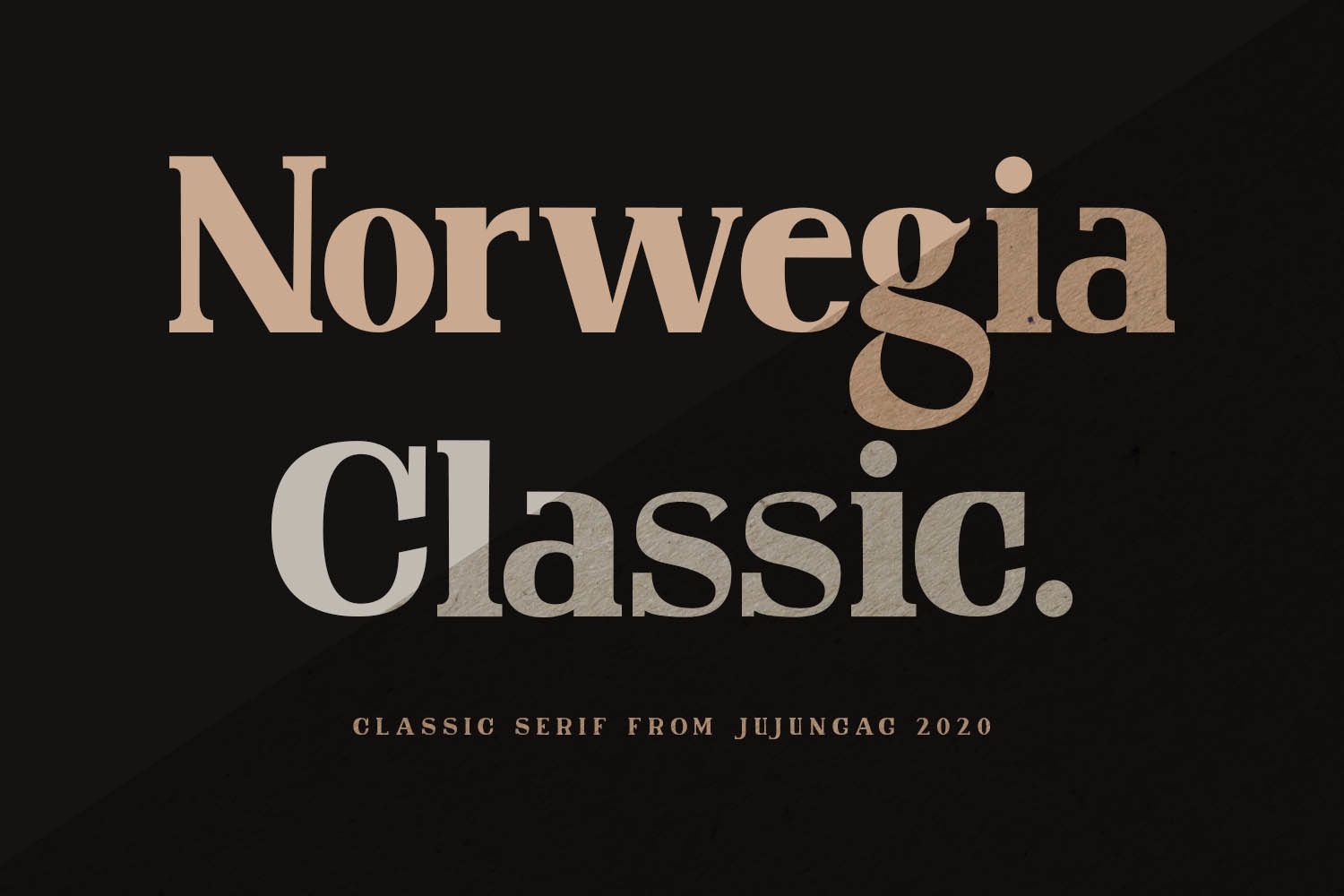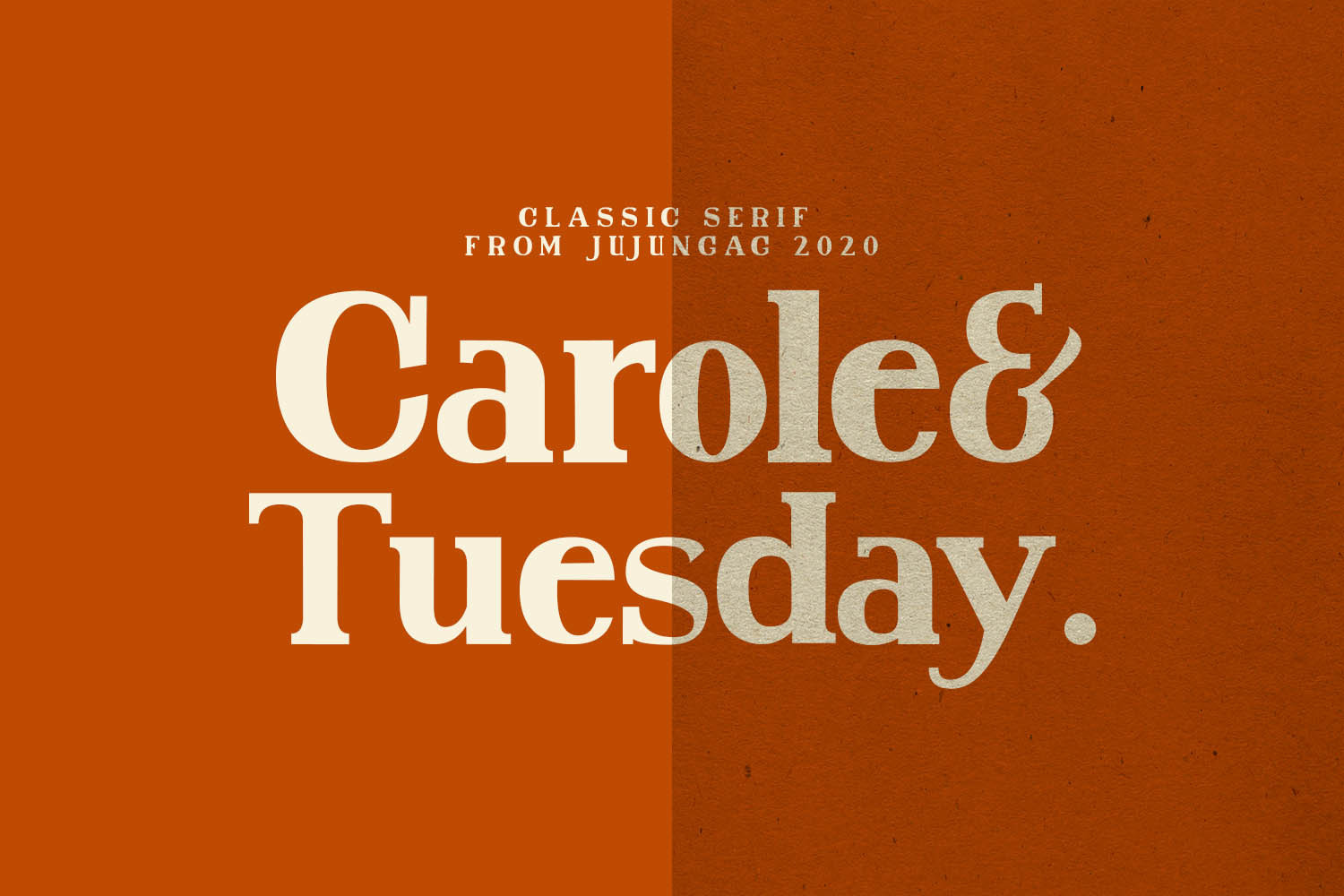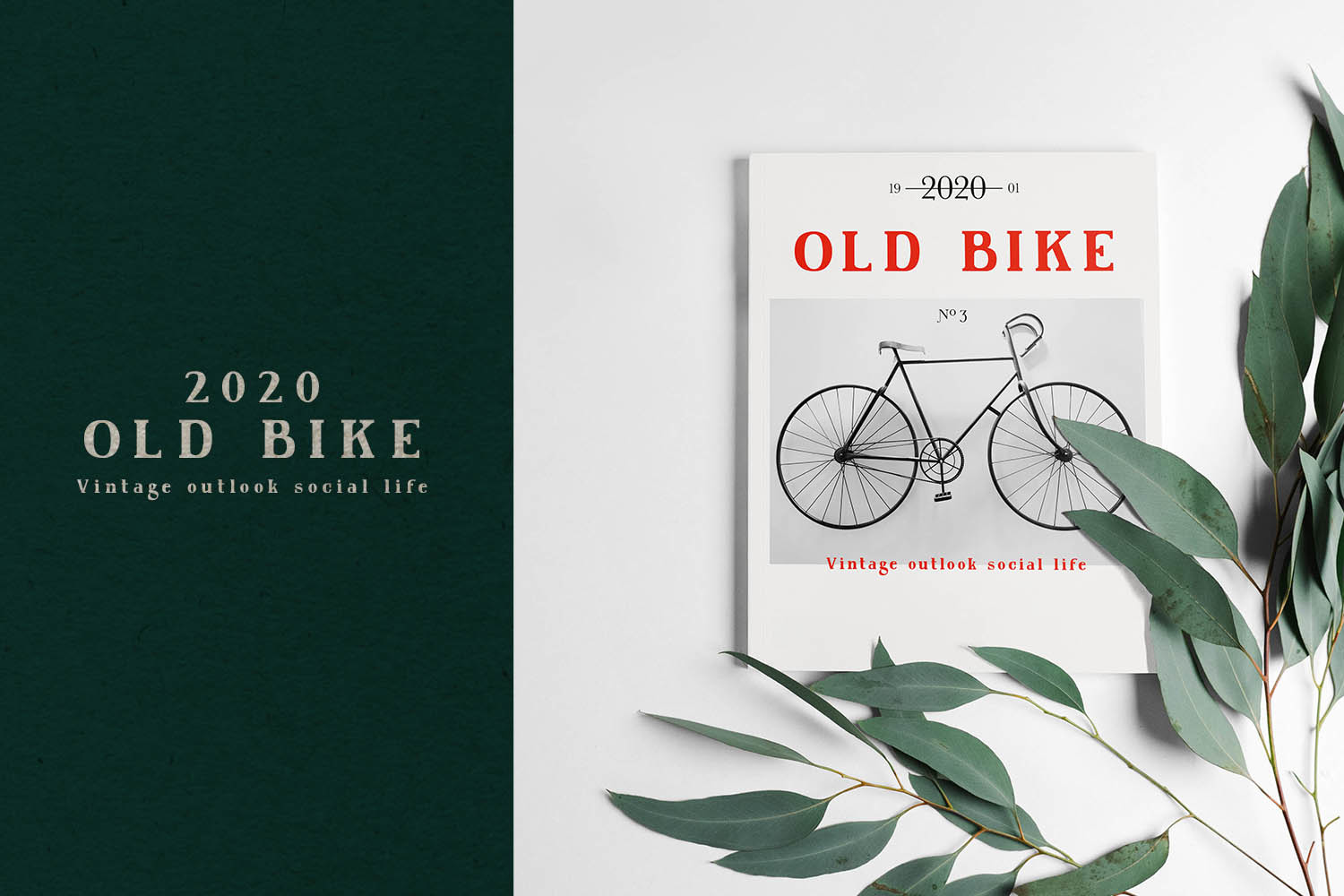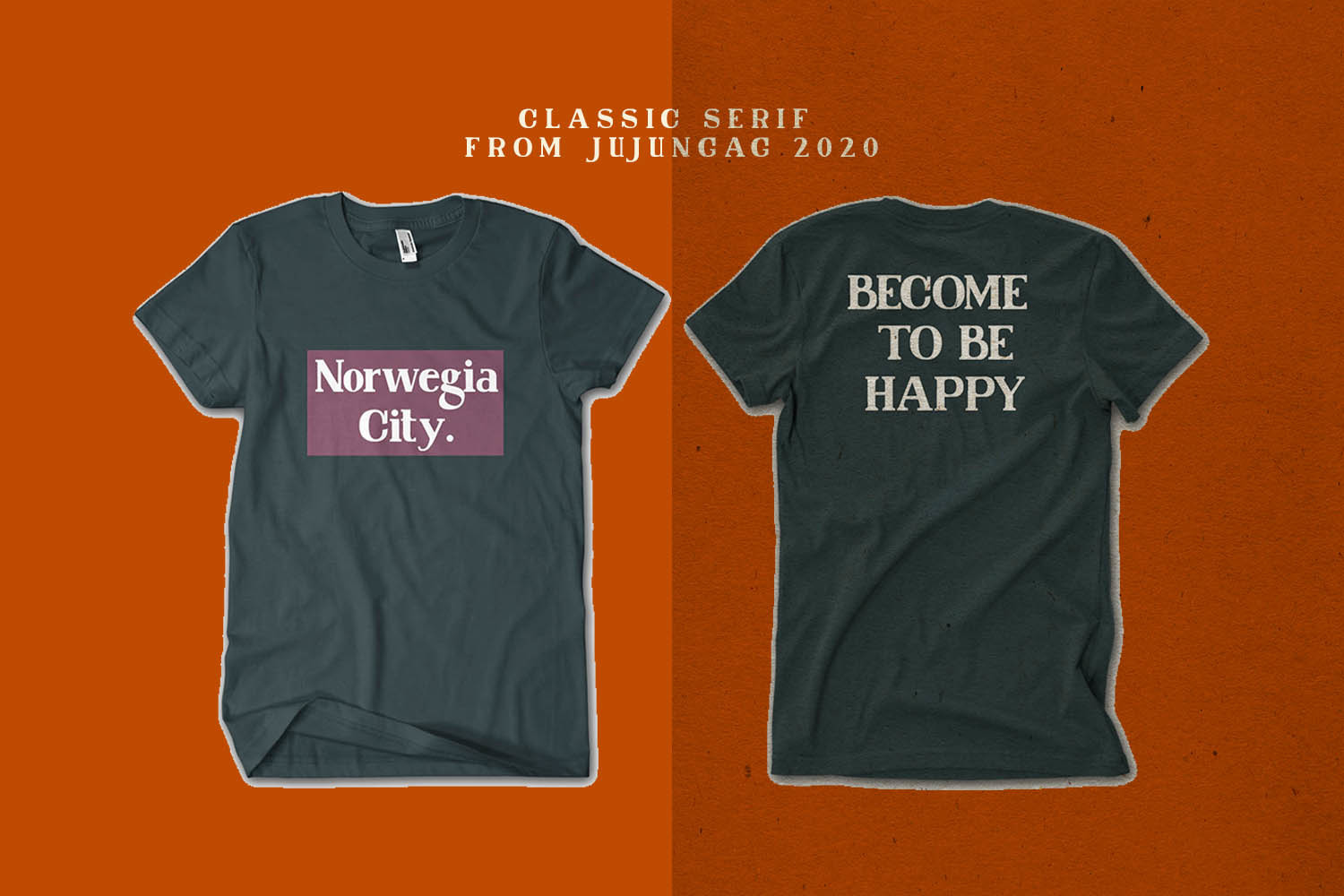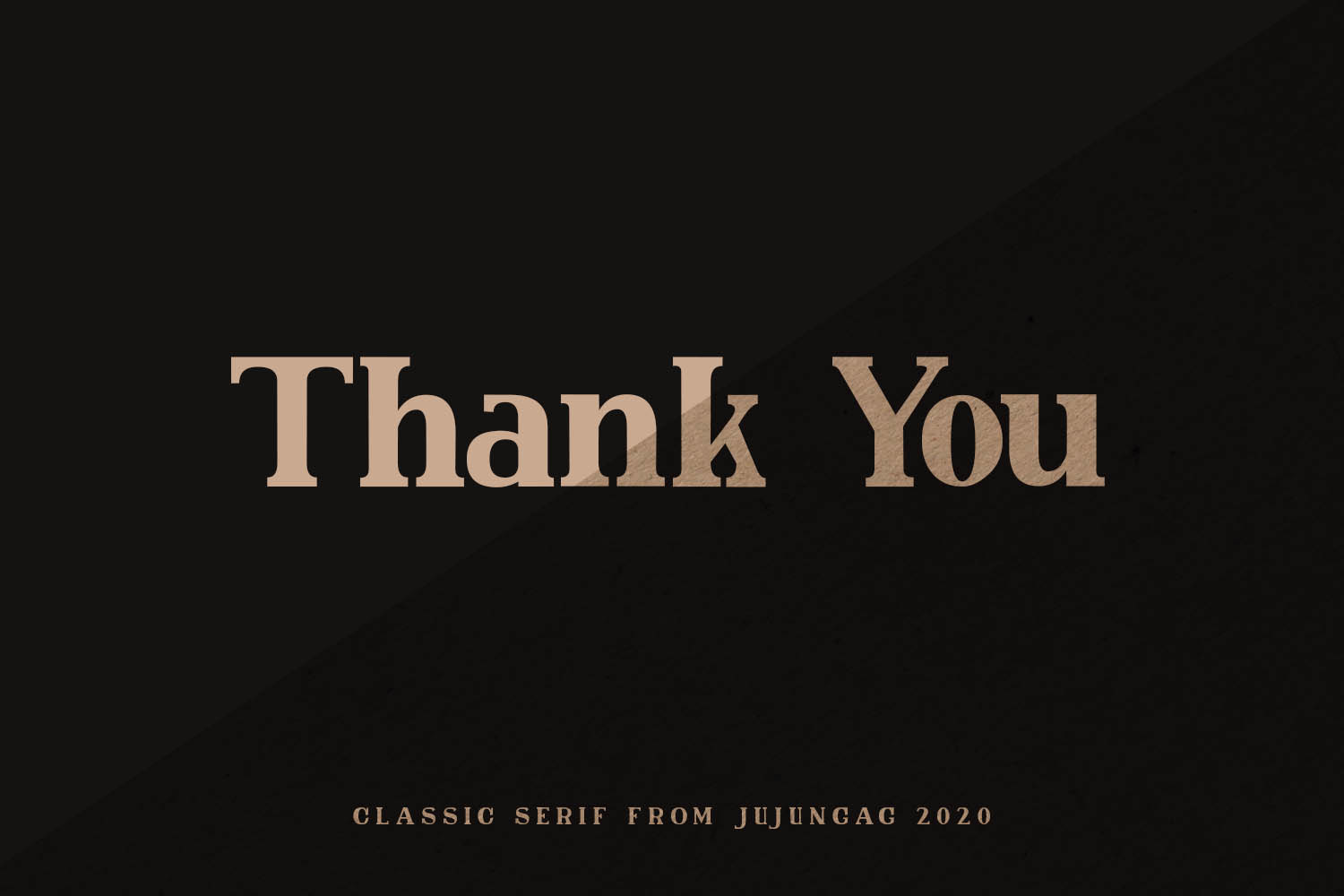
Norwegia Classic Serif Font
Norwegia Classic is a serif Font with a vintage and classic design, This font has a powerful character. The font is work specialty is good for product design like a Beer bottle package, Megazine Template/mockup, T-shirt, Quote or you can use for your logo design, typography design, etc. This product is inspirational and playful for your creative design.